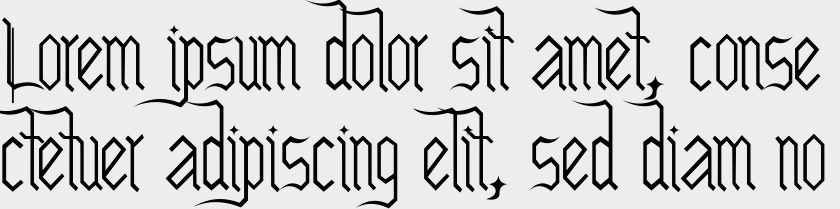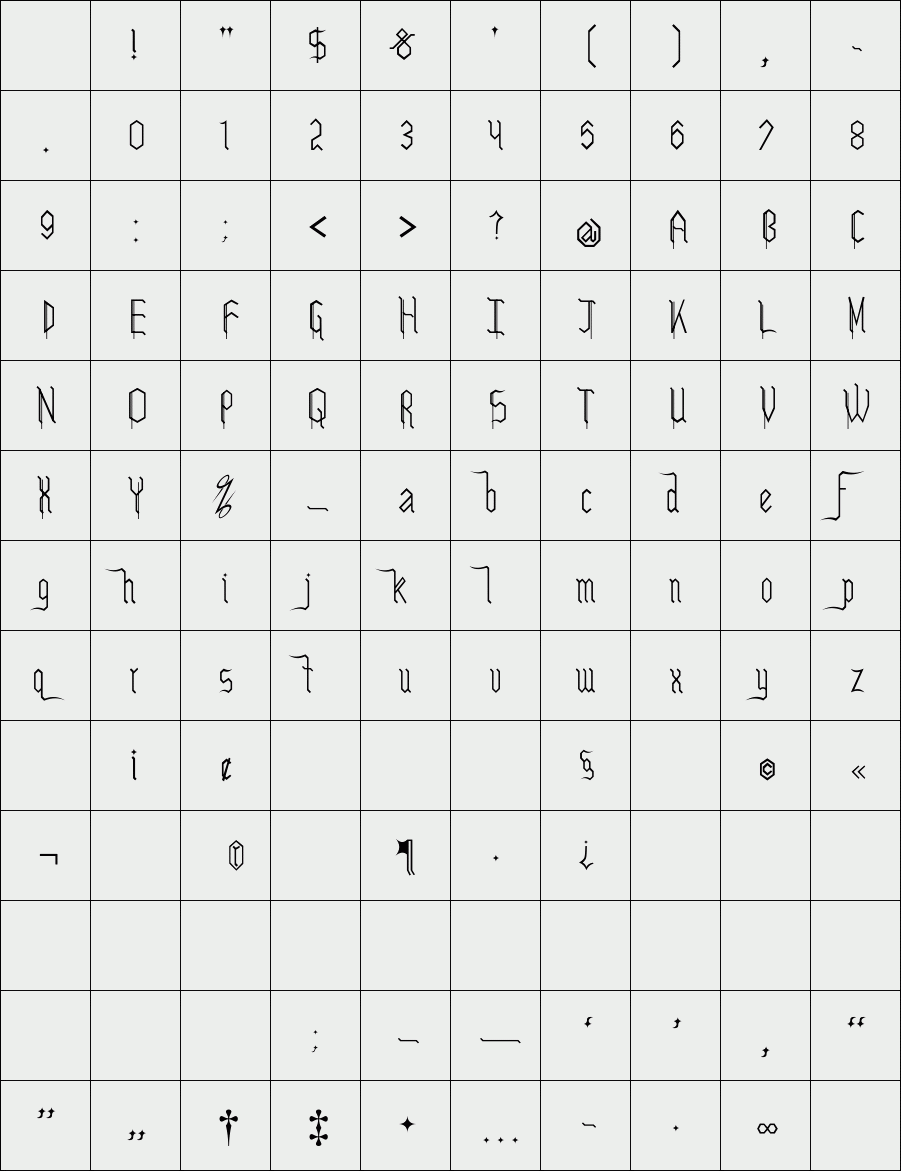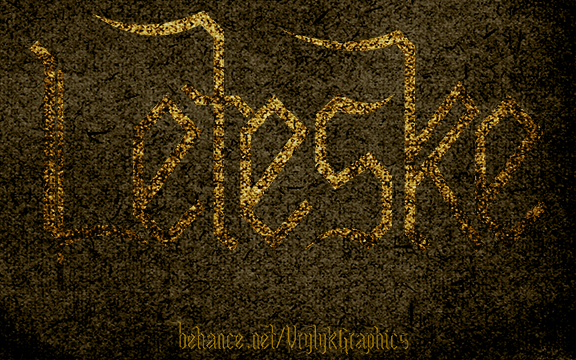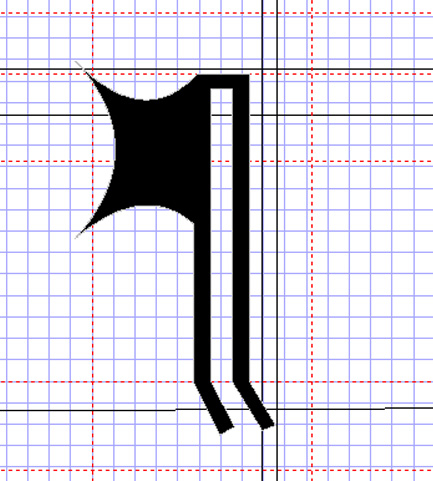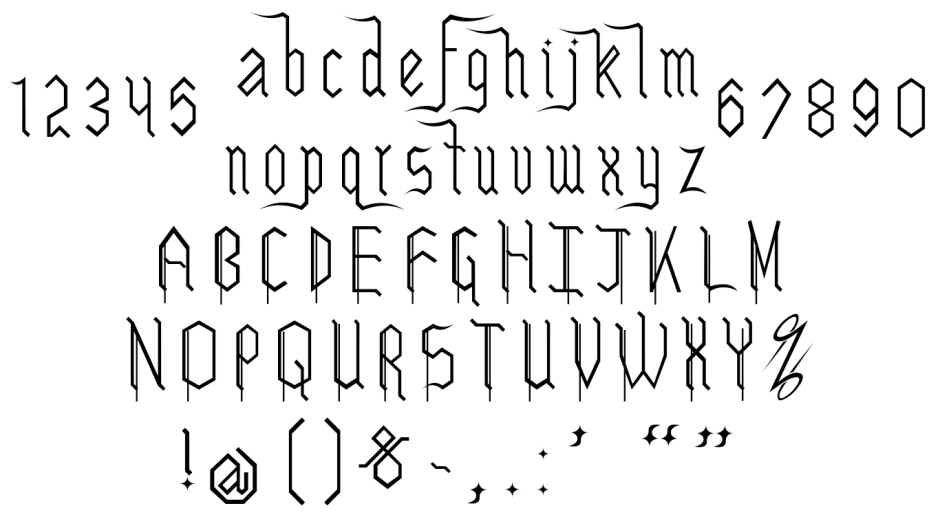
Leteske
Leteske is a blackletter-inspired mono-width display font. Use it however you like. Commercial use is fine. If you find anything wrong with Leteske, let me know via vrylyk@gmail.com.
Leteske was also partially developed to be a typesetting font. I recommend you use it at 20pts for paragraphs, give or take.